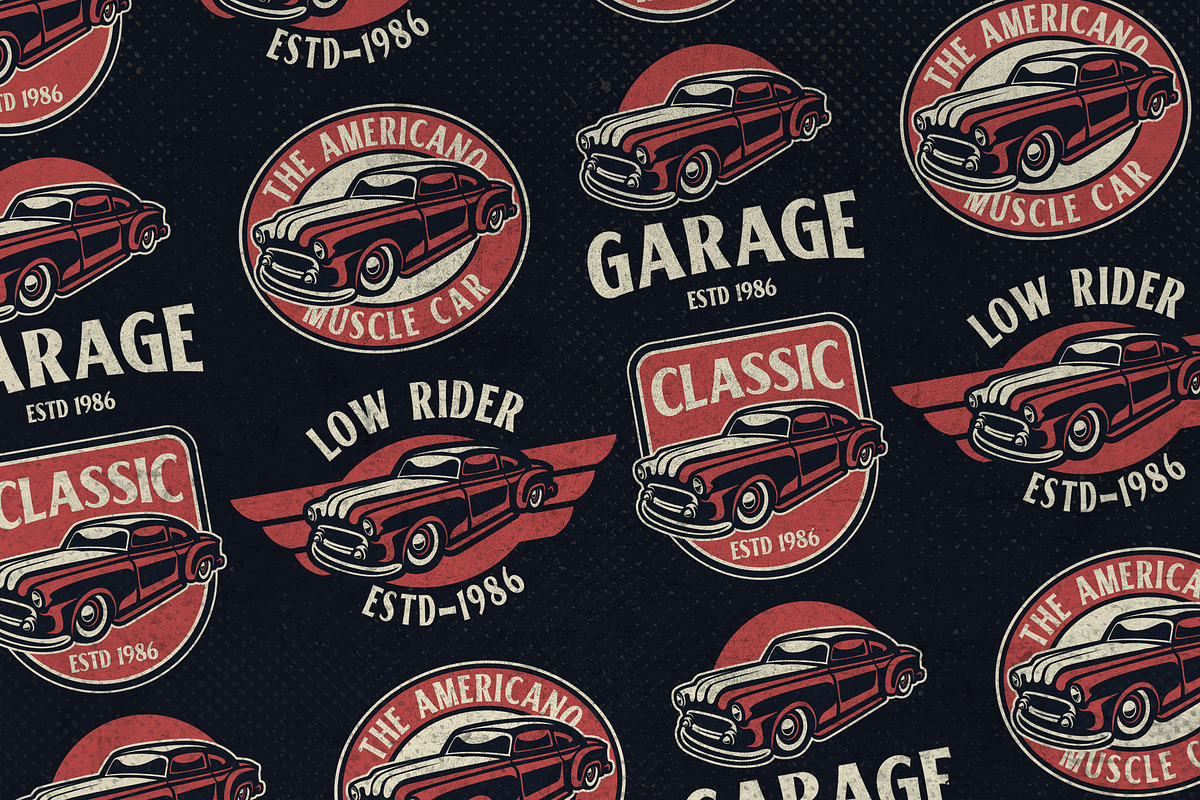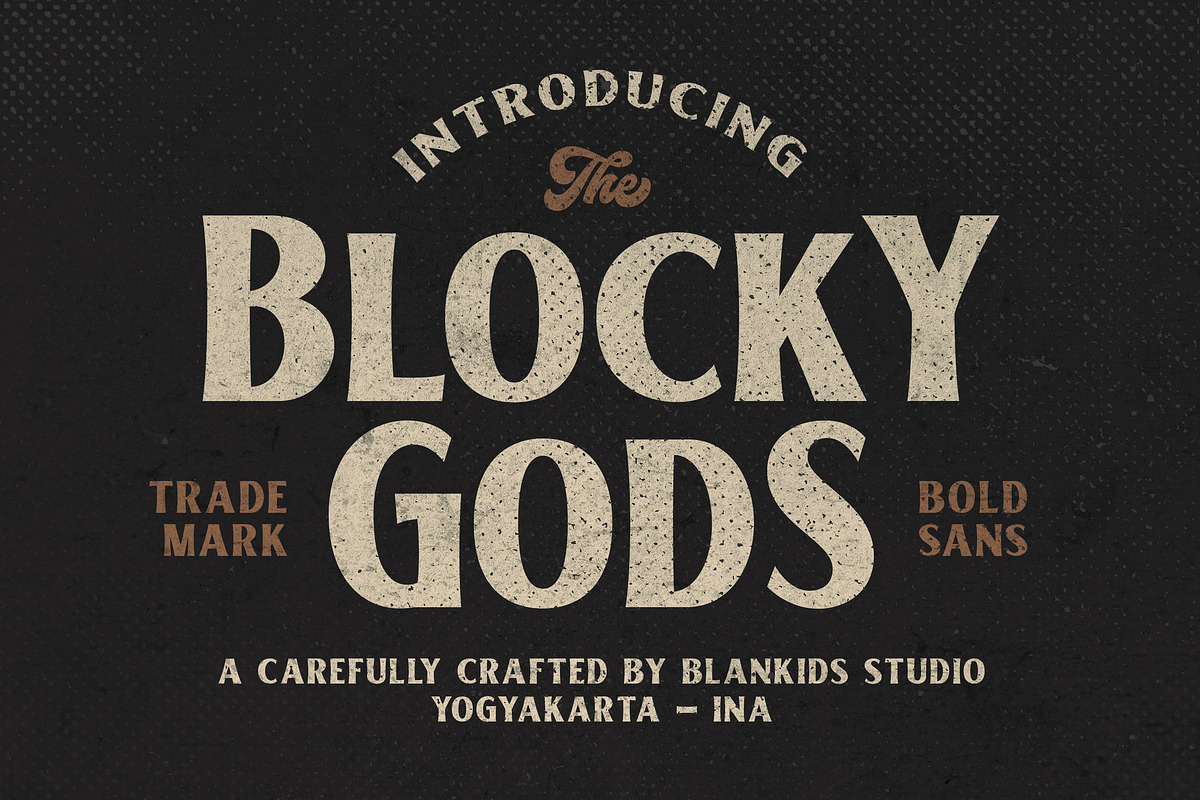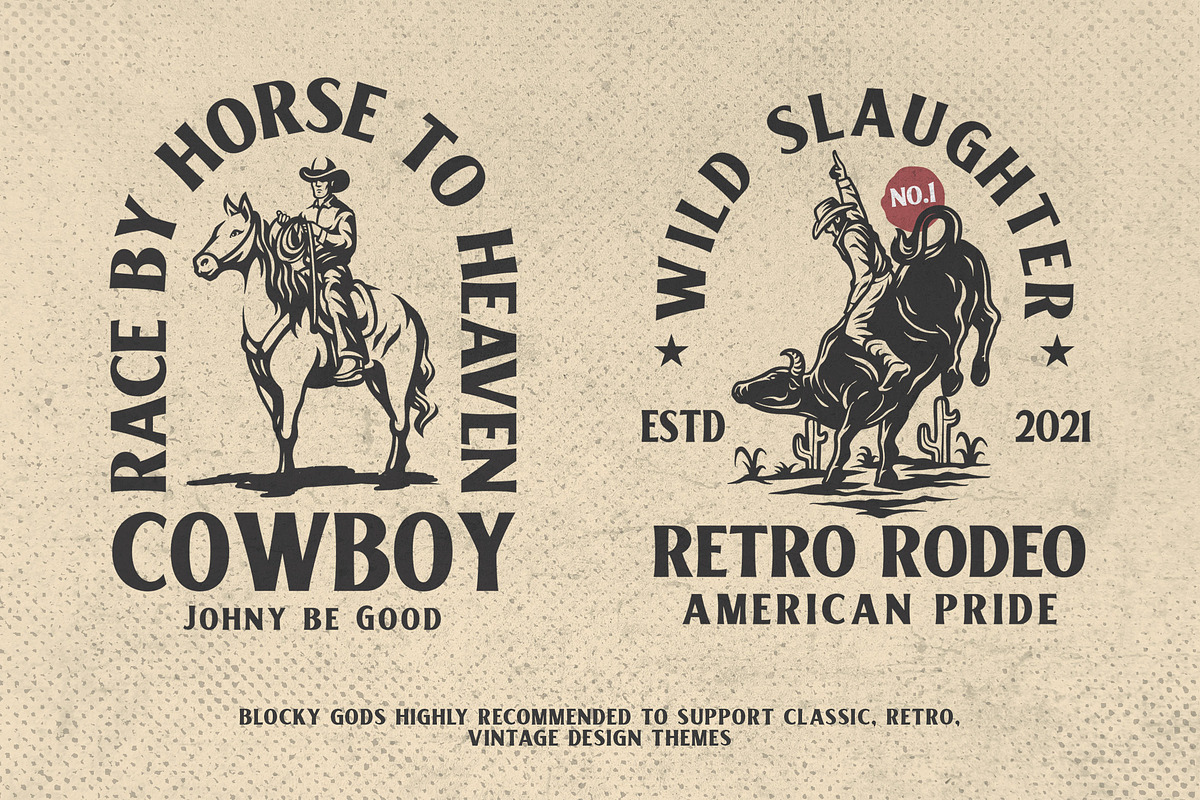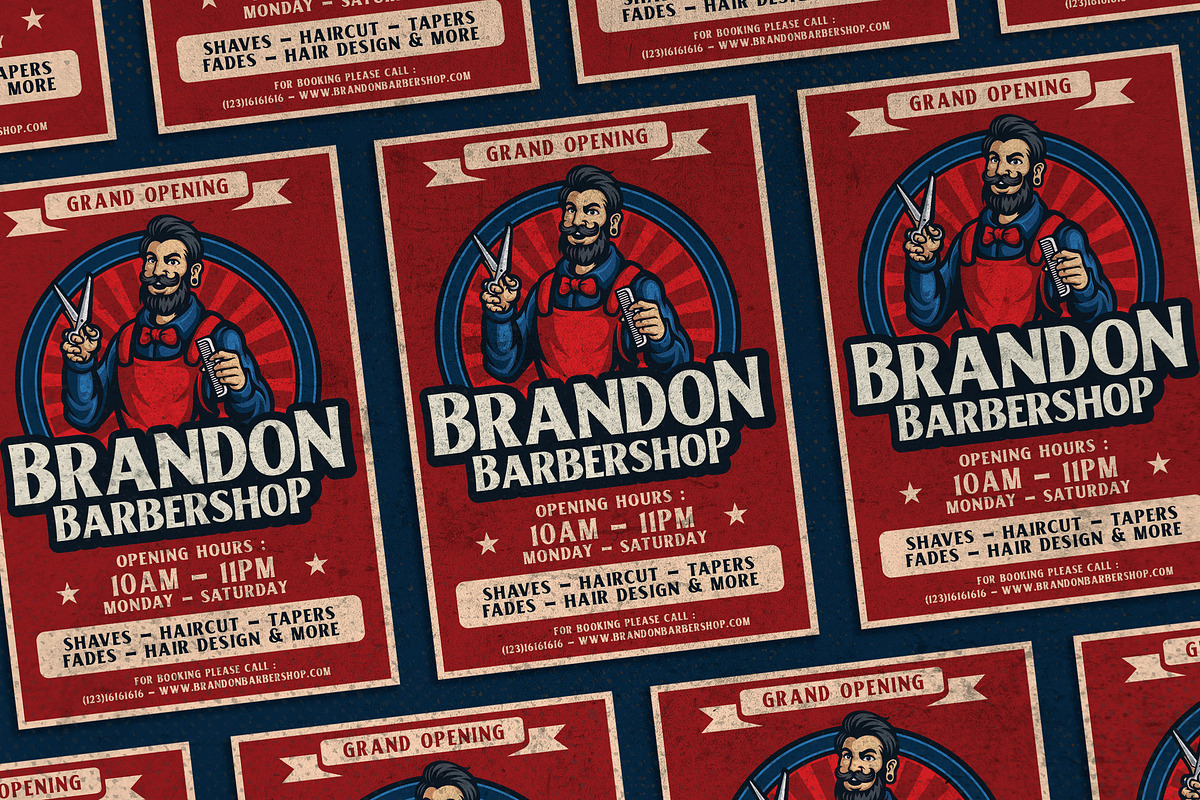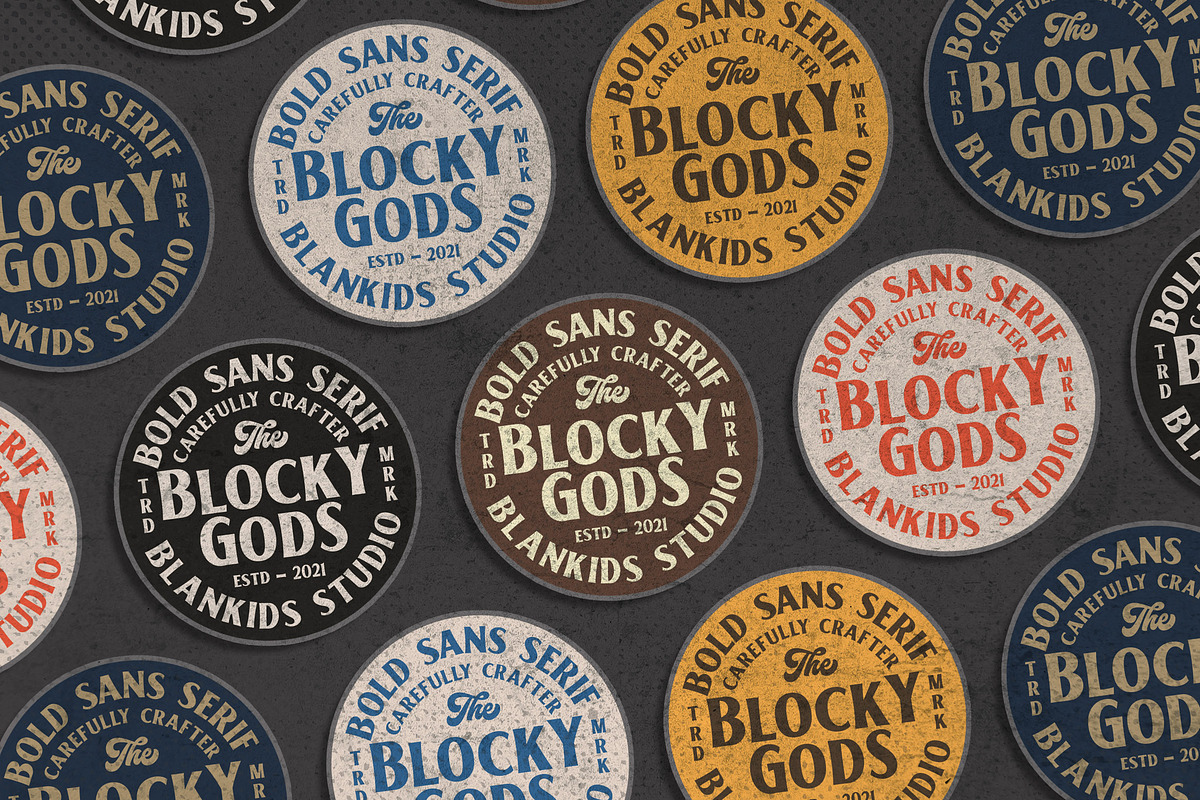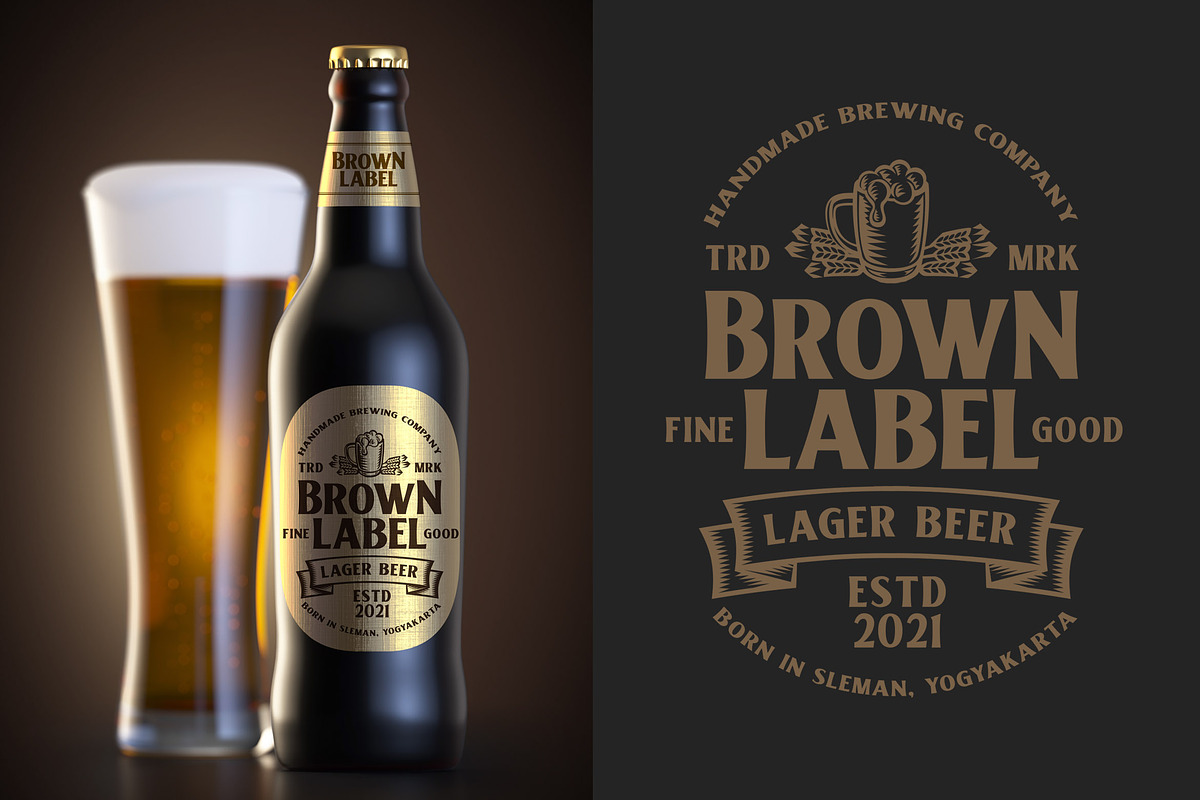
Blocky Gods Vintage Sans Serif Font
Introducing of our new product the name is Blocky Gods Vintage Sans Serif Font. Blocky Gods inspired by vintage style this font is a fun theme very good for display, tshirt design, craft, quote sign, logotype and etc